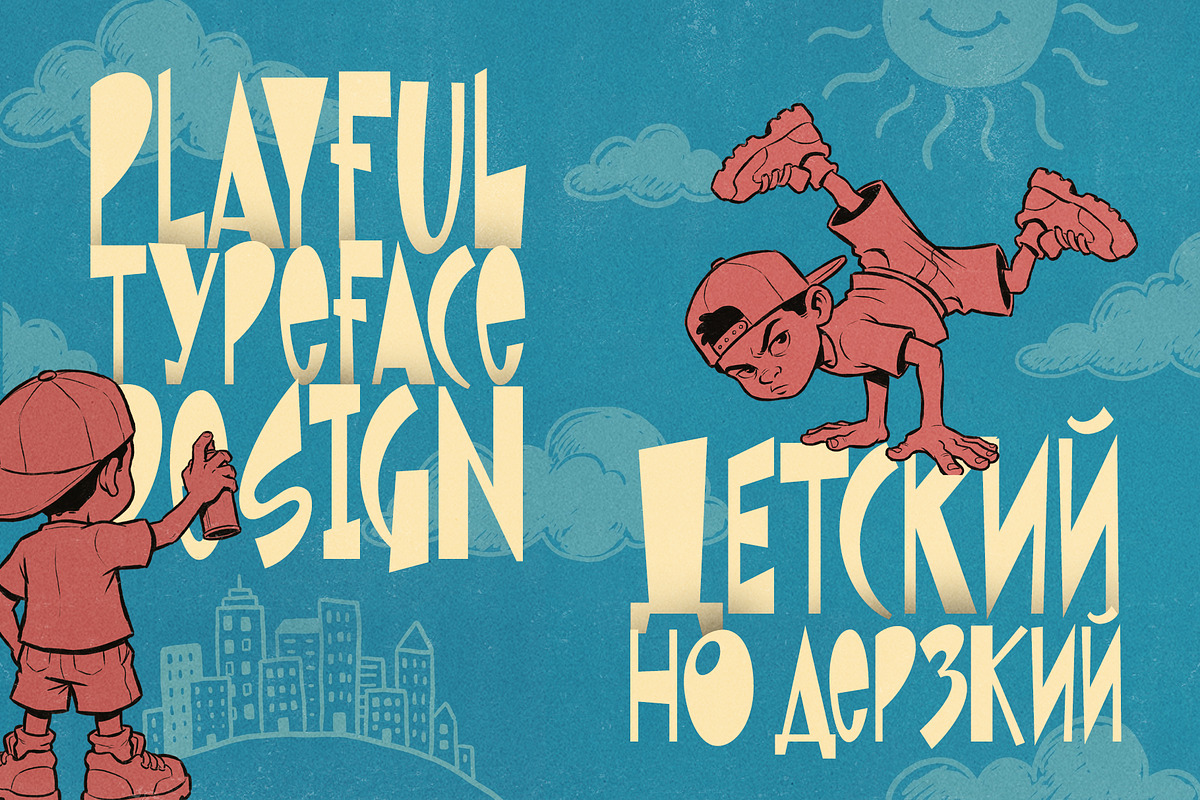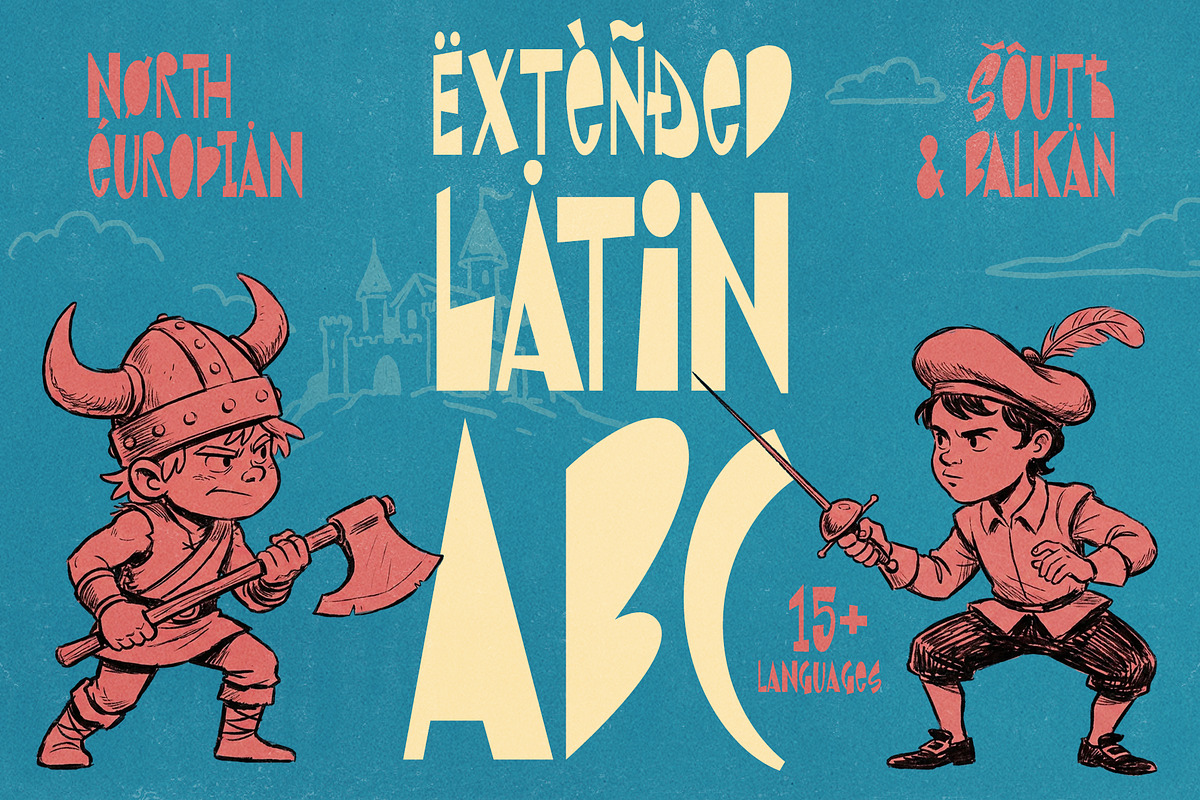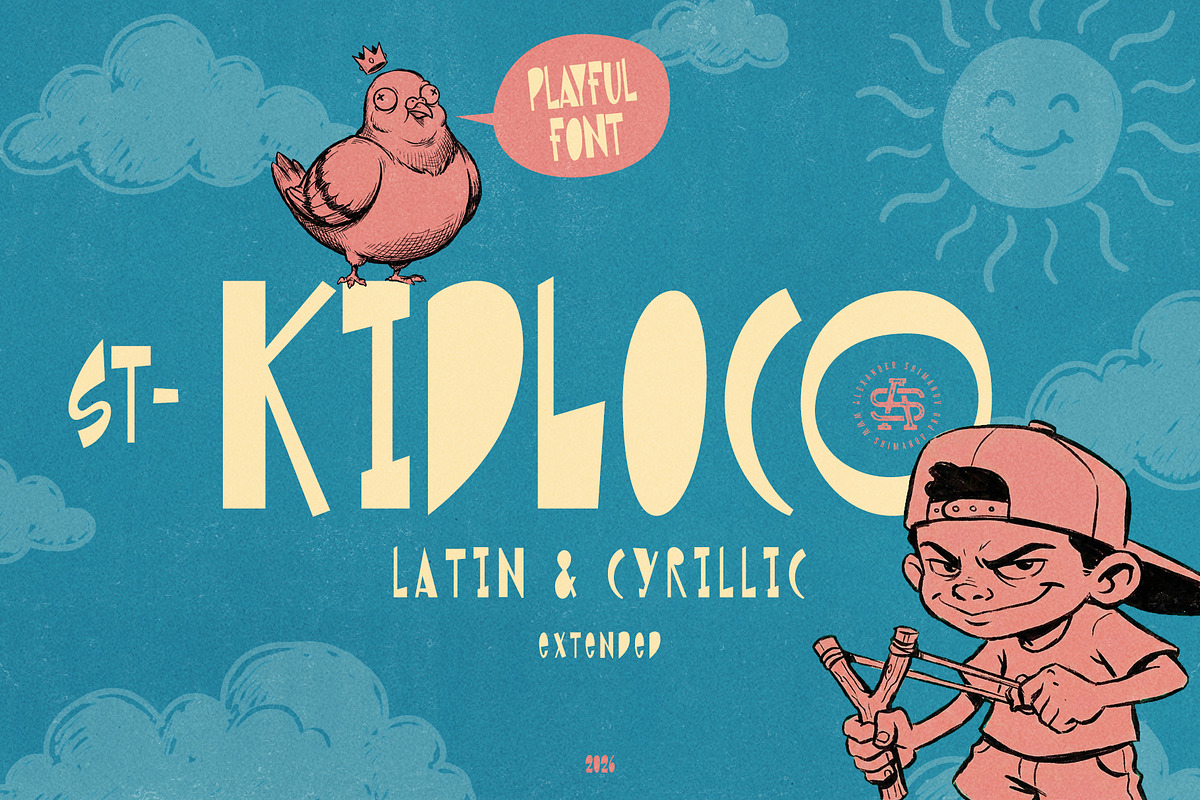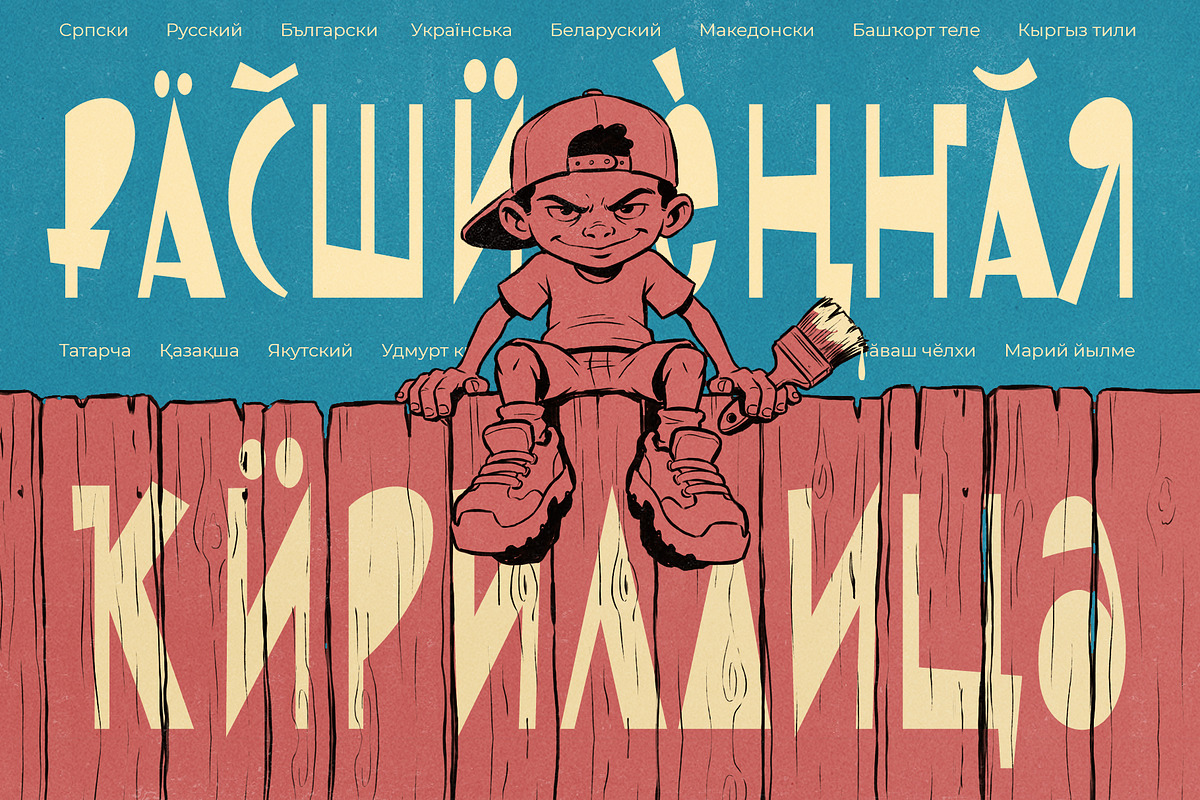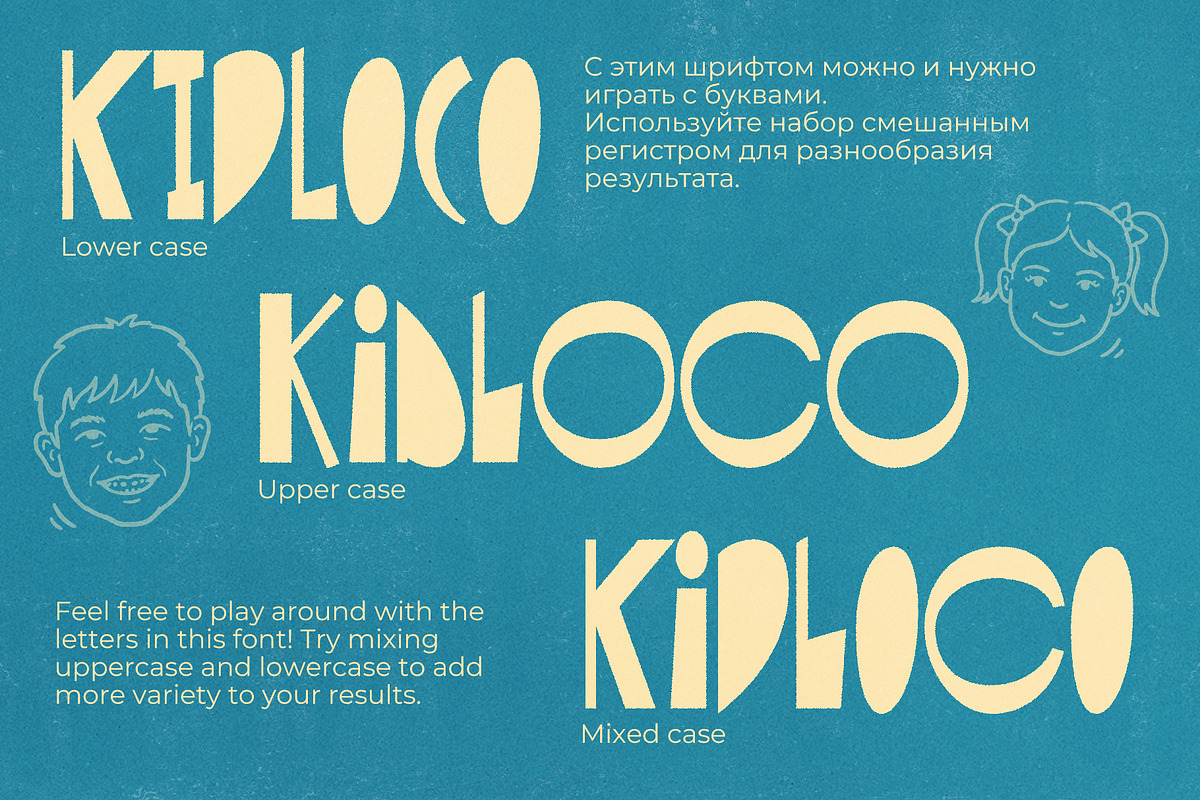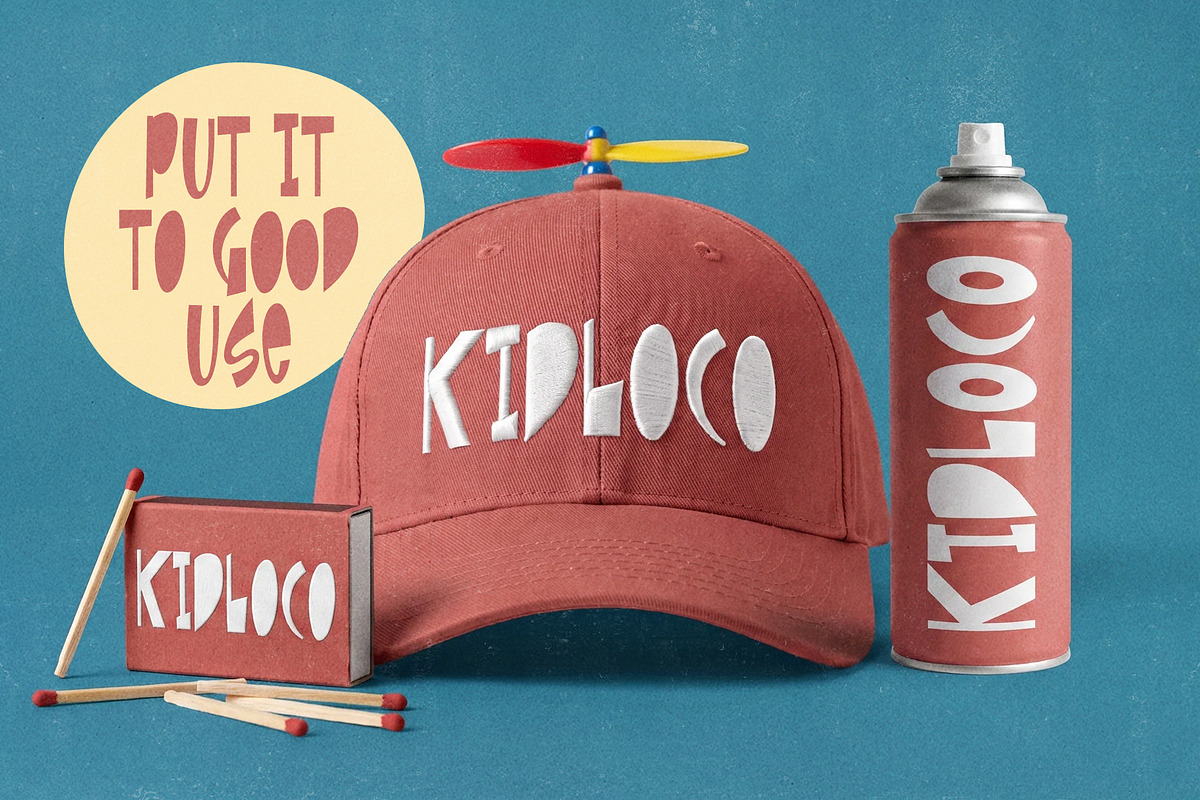
ST-Kidloco - playful & mischievous
ST-Kidloco is a display font with a playful, mischievous character. A distinctive feature of the typeface is its deliberately irregular line and shape proportions. It is a highly decorative font suitable for logo design, bold and eye-catching lettering, and apparel prints.
To enhance its graphical versatility, the font includes letter alternates, which are accessible in the uppercase register.
The typeface supports extended Latin and Cyrillic character sets, and includes punctuation marks and numerals.